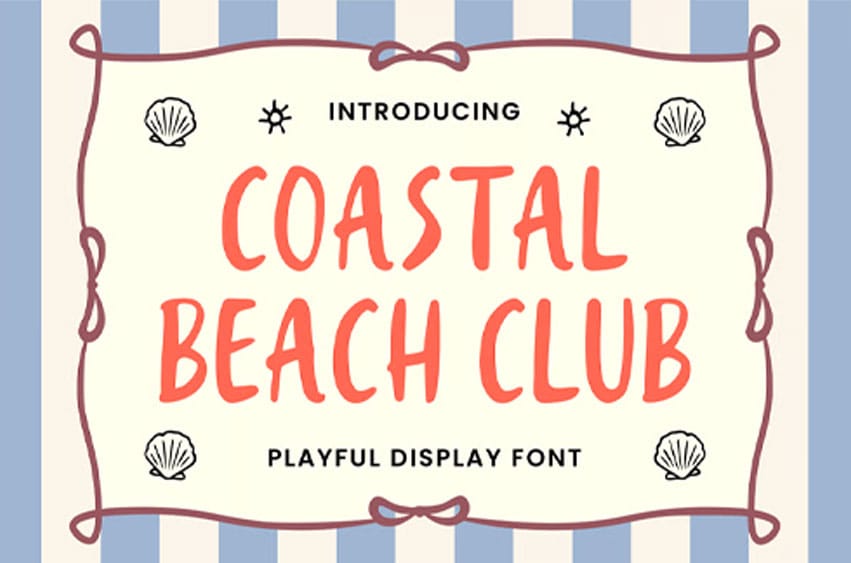
Coastal Beach Font Capture the breezy, effortless essence of the seaside with Coastal Beach, a natural handwritten display font designed to bring an organic, human touch to your professional branding and packaging projects.
Inspired by the relaxed rhythm of coastal living, this typeface breaks the stiffness of traditional corporate fonts. With its authentic hand-drawn strokes and warm personality, Coastal Beach is the perfect design asset for lifestyle brands wanting to appear approachable, eco-friendly, and modern.
Engineered for clarity and global use, it perfectly balances a casual summer vibe with the technical reliability needed for high-end commercial scaling.
Ideal For:Â Lifestyle corporate identities, resort and hospitality branding, artisanal product packaging, organic cosmetics, boutique logotypes, and emotive visual narratives.
Key Typography Features:
- 201 Glyphs: Carefully crafted to maintain an authentic, natural handwritten flow across all your designs.
- Multilingual Support: Supports 66 languages, ensuring your brand’s message translates beautifully across global markets.